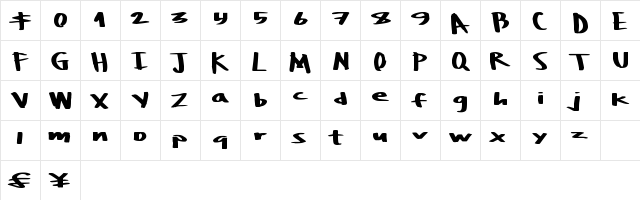
BoulderRough Regular
Design Context for BoulderRough Typeface
BoulderRough trades polish for personality, using distressed and eroded forms to bring grit and attitude to creative work.
Suited to punk-influenced zines, underground music branding, streetwear, and raw, anti-corporate design.
Pro Tip: Pair BoulderRough with intentionally raw or lo-fi design elements. Fighting against it with overly polished surroundings will undermine its personality.